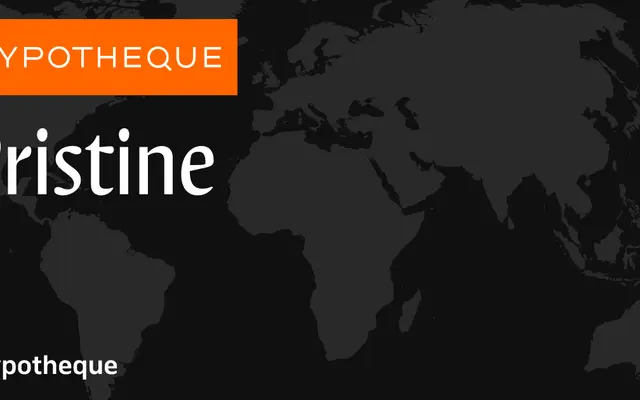
Pristine specimen from Typotheque
A four-weight serif family from Typotheque with a variable font option, covering Light through Bold for text and editorial use.
Available in four static weights from Light to Bold alongside a variable font, Pristine is a serif family designed for text setting across a range of sizes. The Latin character set includes swash alternates, suggesting attention to typographic detail beyond purely functional text use. Typotheque's foundry background ensures solid technical construction and broad language support within the Latin script.
The name, weight range and Typotheque's general output suggest a refined serif design; the clean, upright presentation implied by 'Pristine' and the foundry's tradition of carefully crafted text faces point toward a transitional or classical serif subcategory.